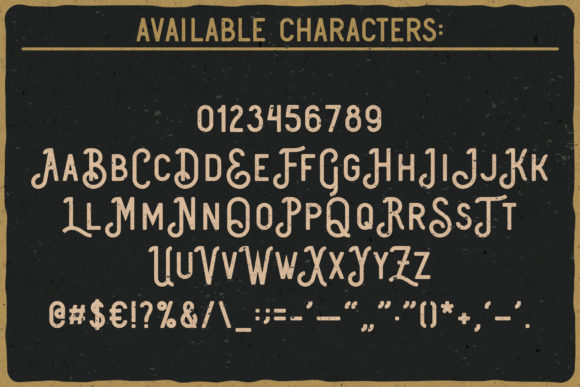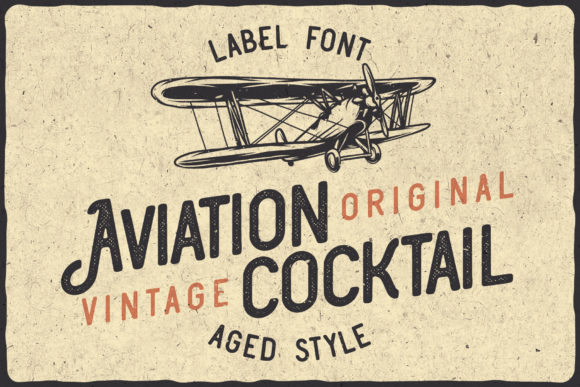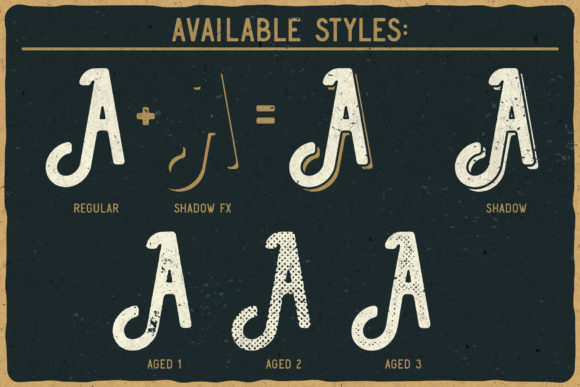
Aviation Cocktail Font: A Bold Vintage Display for Logo Design
About the Aviation Cocktail Font
Get ready to be inspired by Aviation Cocktail Font, a fresh and dynamic typeface for modern creators. Aviation Cocktail is a cool, assertive and bold display font. It looks beautiful on a variety of designs requiring a personalized style, such as wedding invitations, thank you cards, weddings, greeting cards, logos and so on.
Aviation Cocktail thrives in headline applications, short impactful statements, and branding elements where a strong, confident voice is needed. Its bold character makes it ideal for posters, logos, and packaging designs requiring immediate visual impact. However, its assertive style is less suitable for body text or UI elements, where readability over long stretches is paramount.
This font’s personality is best described as bold and assertive, yet stylish. It projects a sense of sophistication and confidence, making it a perfect fit for luxury brands, high-end products, or events with a distinct personality. Consider pairing it with a clean sans-serif like Lato for body text, or a more delicate script font such as Great Vibes for a touch of elegance in supporting elements.
For a more modern and edgy feel, a geometric sans-serif like Montserrat would create a striking contrast. Avoid pairing it with other heavily decorated or overly ornate fonts, as this would detract from Aviation Cocktail’s unique character and readability.